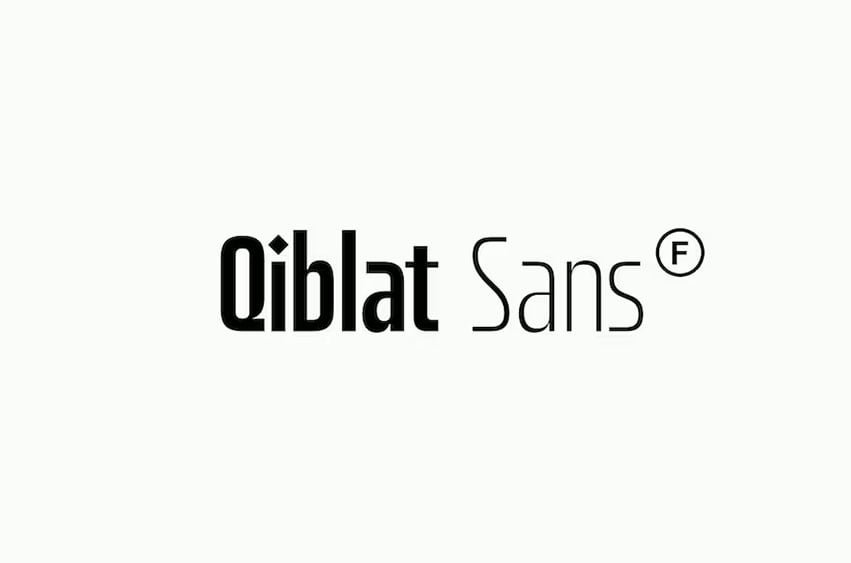
Qiblat Font is a modern sans serif font designed with calligraphy style for a wide range of needs. It also provided 5 styles of weight to give it’s users freedom when using it.